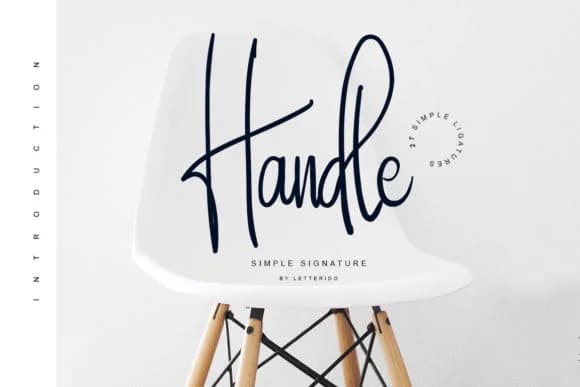
Handle brings an approachable, loose handwriting feel that looks like someone just grabbed a pen and wrote something genuine. Created by Ratin Creative, this casual script font captures that authentic, unpolished quality without sacrificing readability or character. The letterforms have a natural bounce and organic flow that makes even simple text feel personal and lived-in, like the marks came from a real hand rather than a mathematical formula.
This font shines for projects where authenticity and warmth matter more than polish and perfection. Handwritten thank you cards and custom invitation suites gain instant charm from its genuine personality. It works beautifully for DIY craft labels on homemade jams or artisan goods, informal product packaging for small makers and independent local brands, and casual event signage with that friendly, approachable feel. Social media captions and graphics benefit from that conversational quality that helps you connect directly with followers without sounding like a corporate announcement.
Handle Font is a script font that shines as a display or heading face. Pair it with a clean sans-serif or serif font for body text β the contrast creates a clear hierarchy while the two styles stay balanced and easy to read.